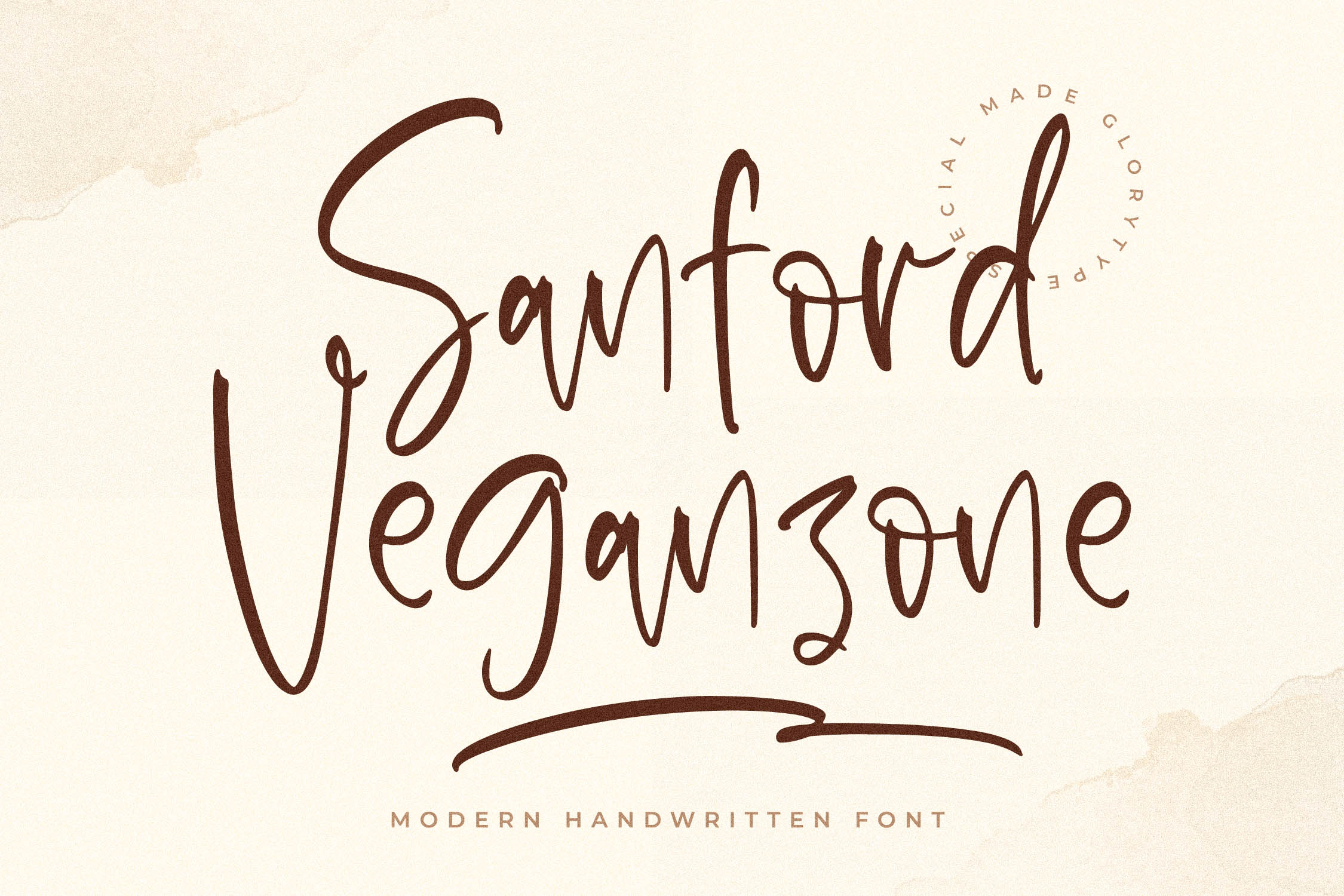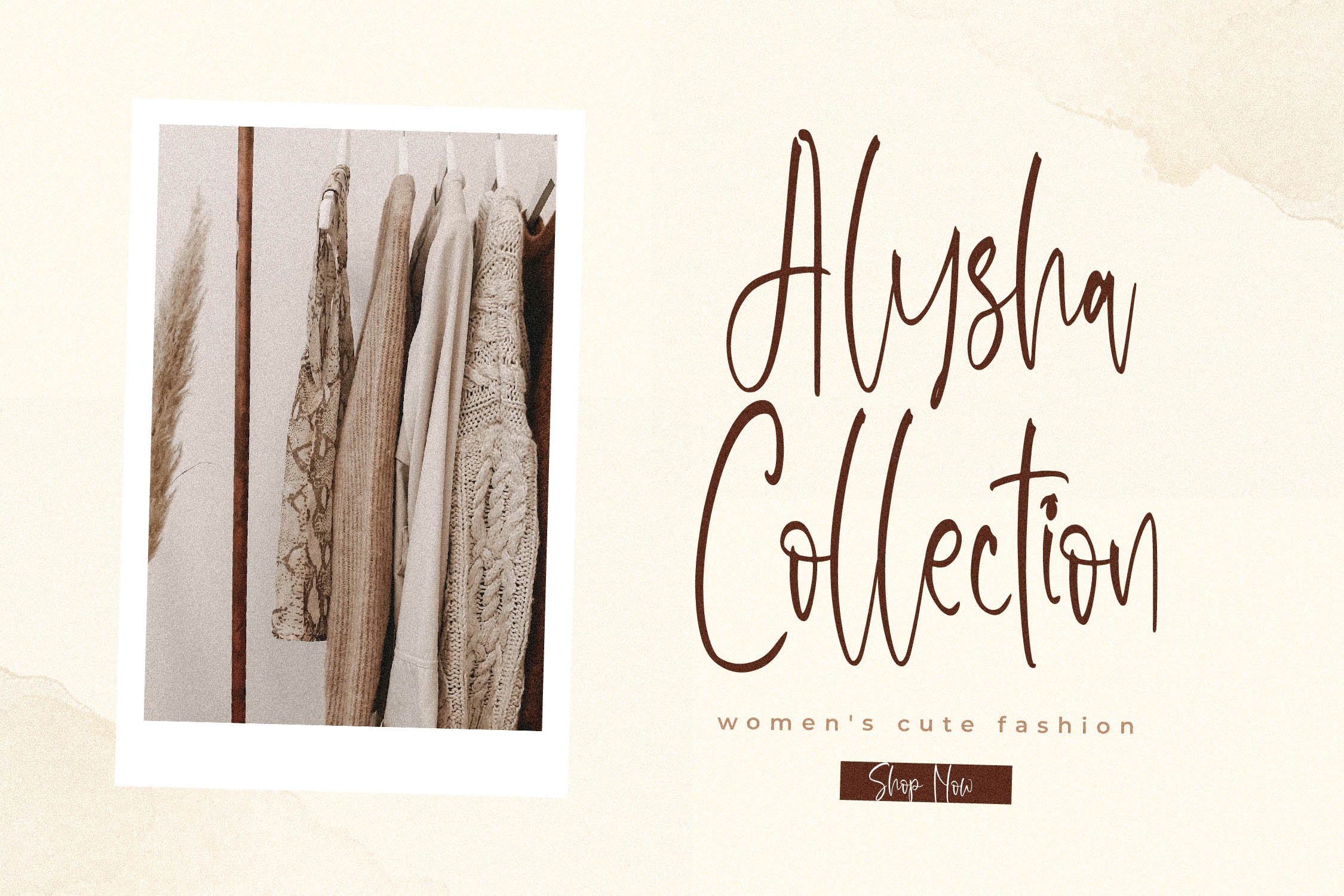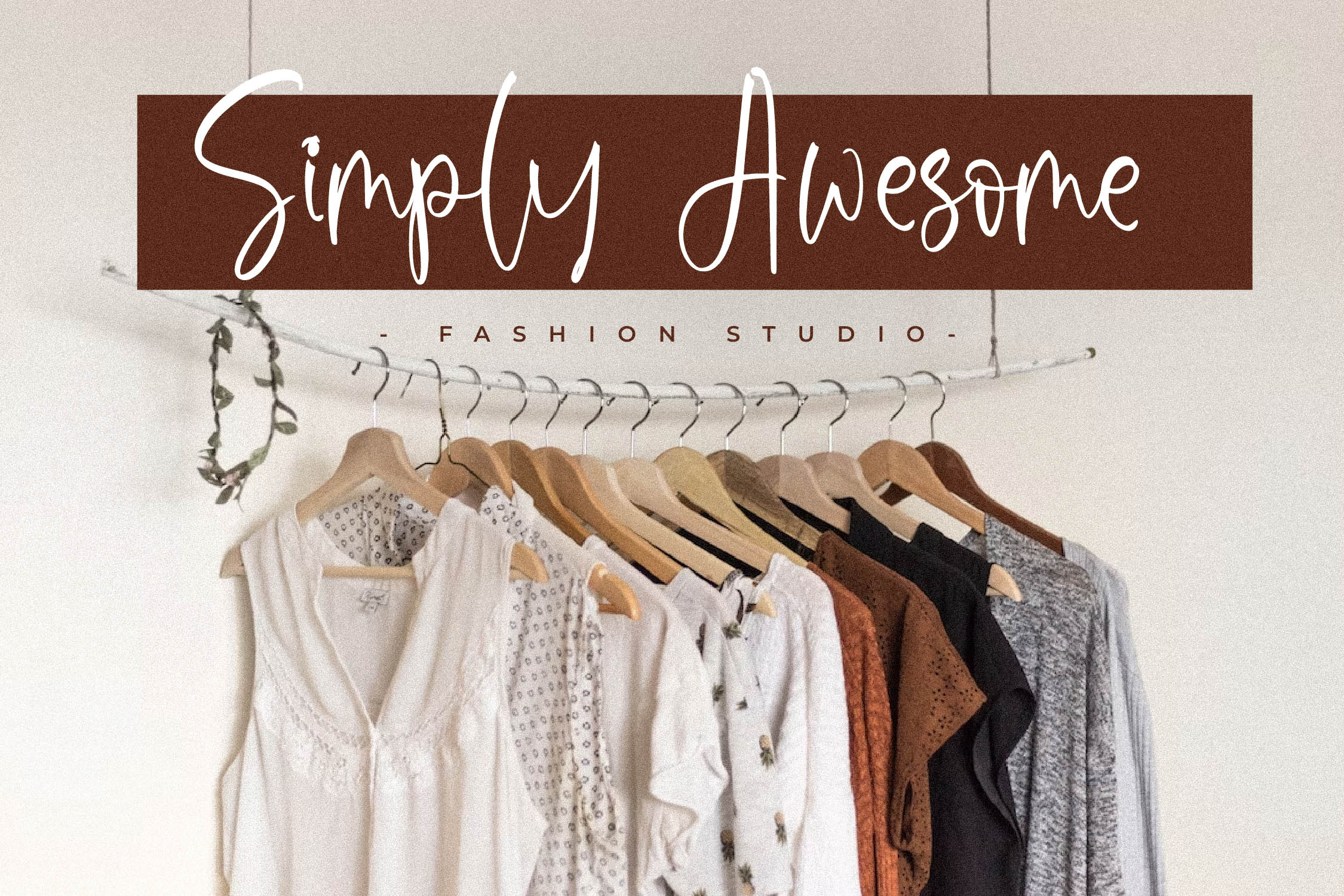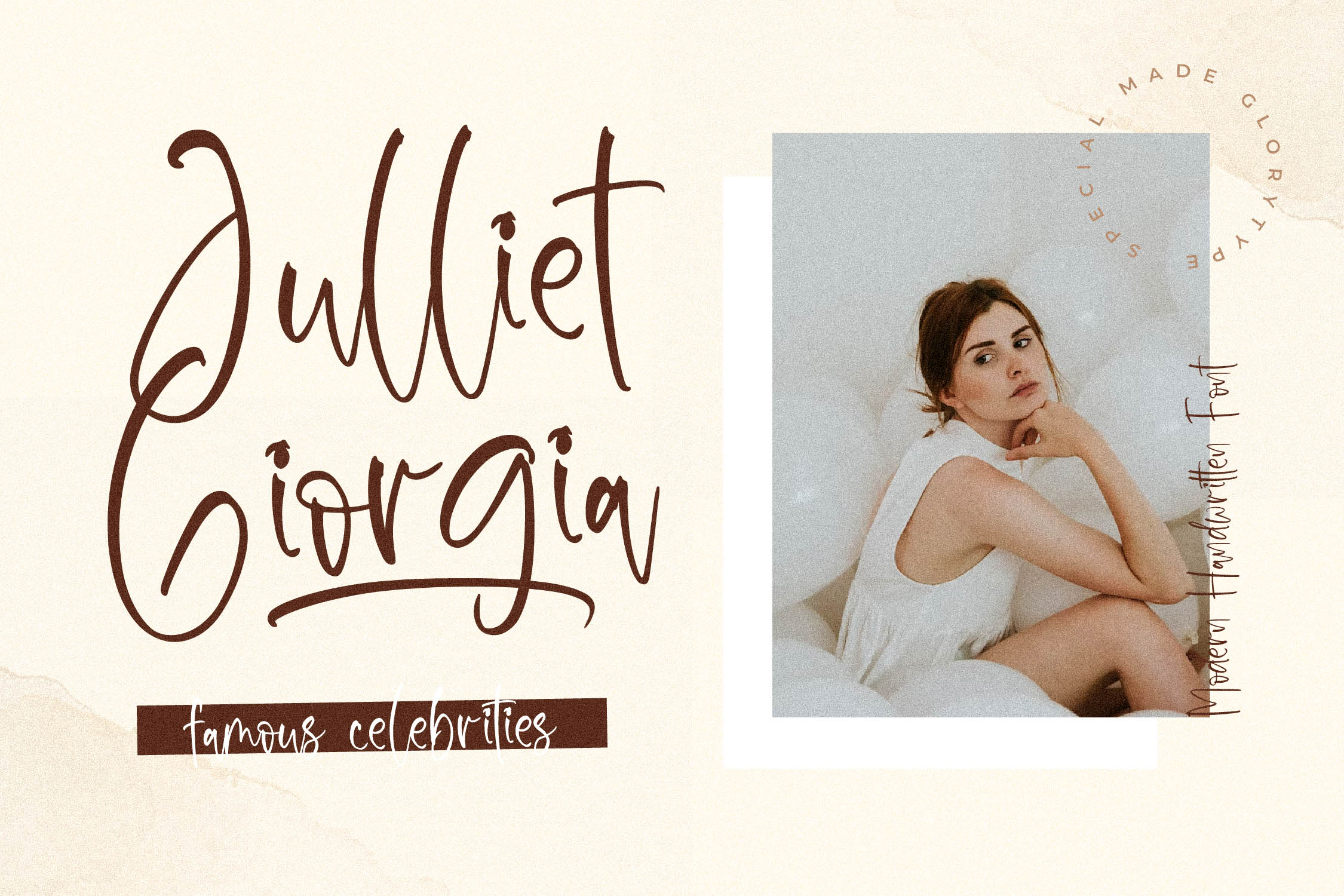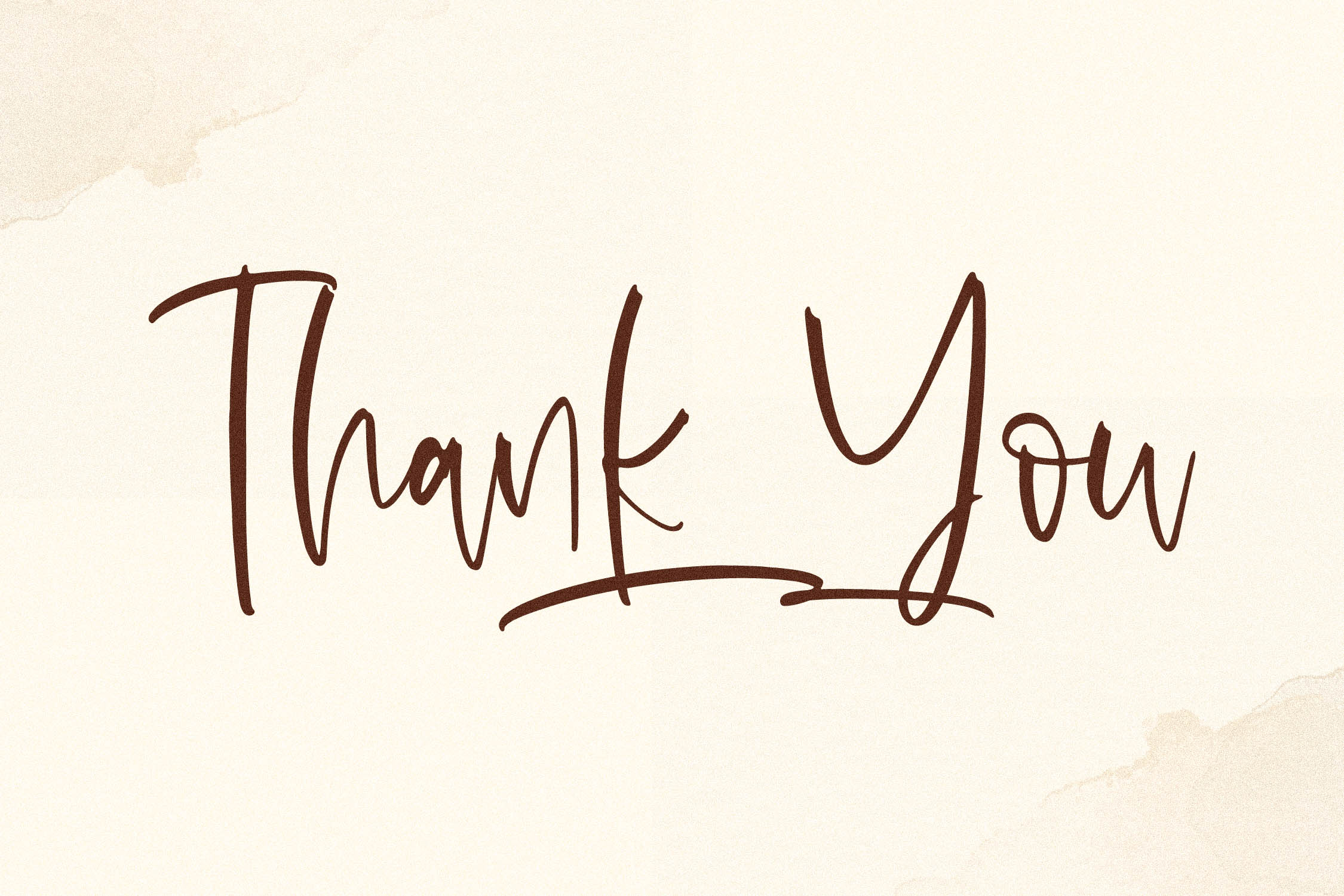
Sanford Veganzone Font
Sanford Veganzone Script Font is a Modern Handwritten Font, suitable for any projects such as: logos, branding projects, homeware designs, product packaging, mugs, quotes, posters, shopping bags, t-shirts, book covers, name card, invitation cards, greeting cards, label, photography, watermark, special events, and all your other lovely projects that need a beautiful script taste.